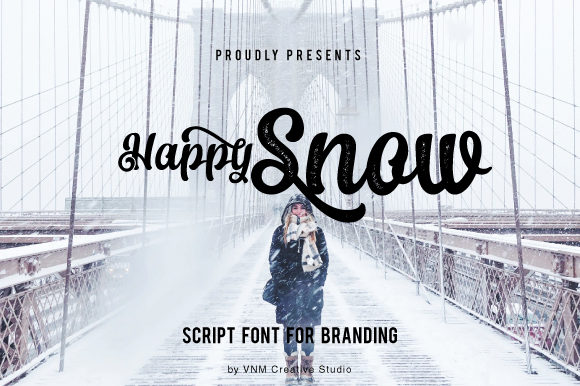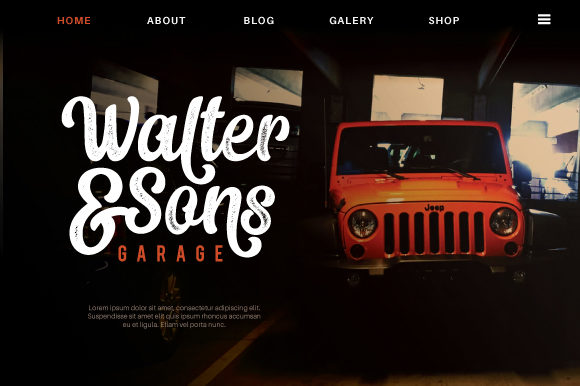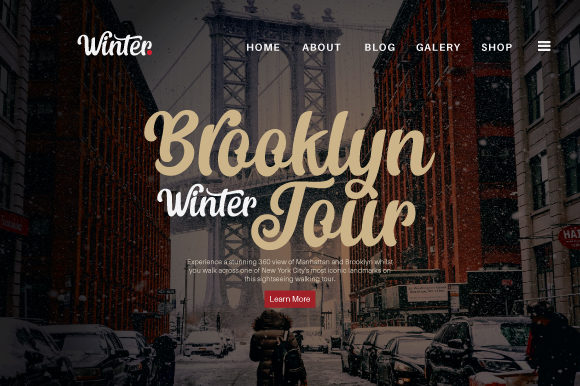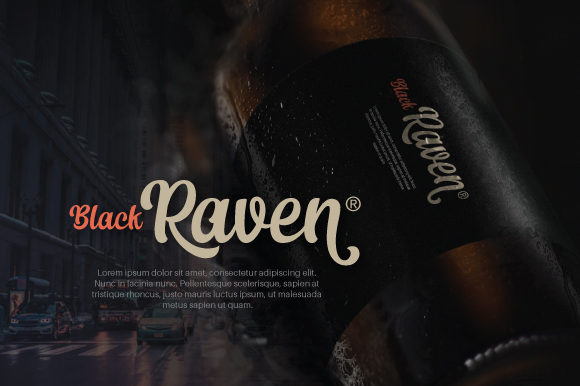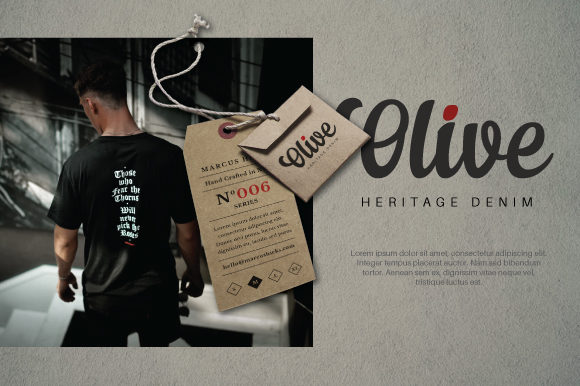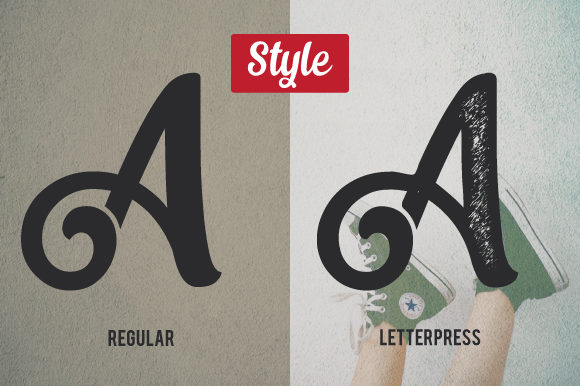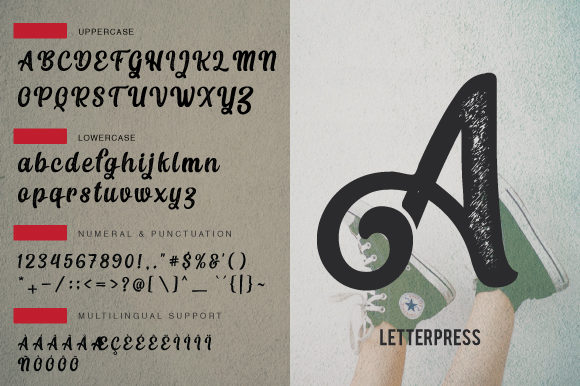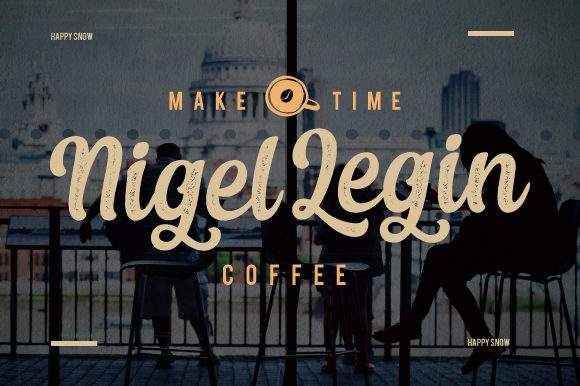
Happy Snow Font
About Happy Snow Font
Happy Snow is a playful and dynamic script that’s perfect for branding. It is incredibly recognizable and will turn any design project into a unique piece of art.